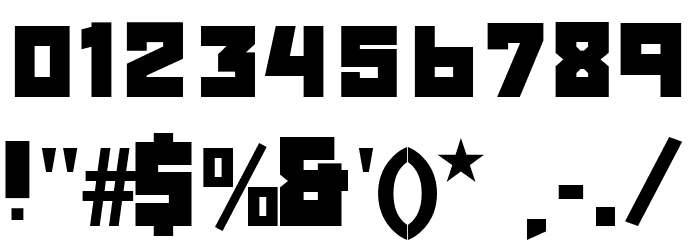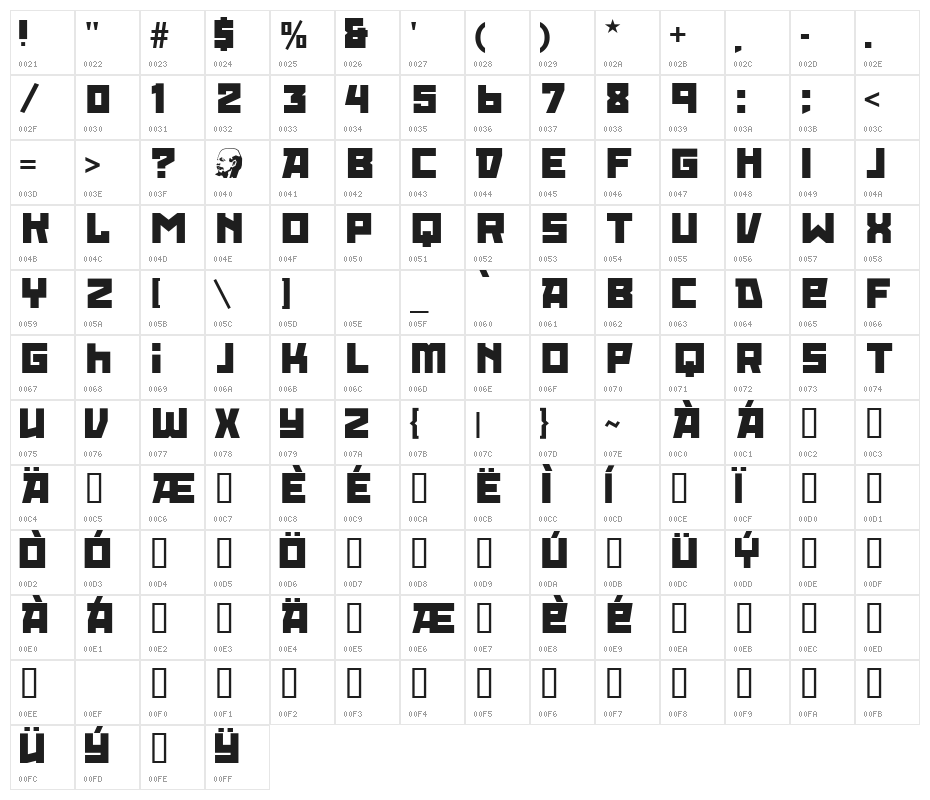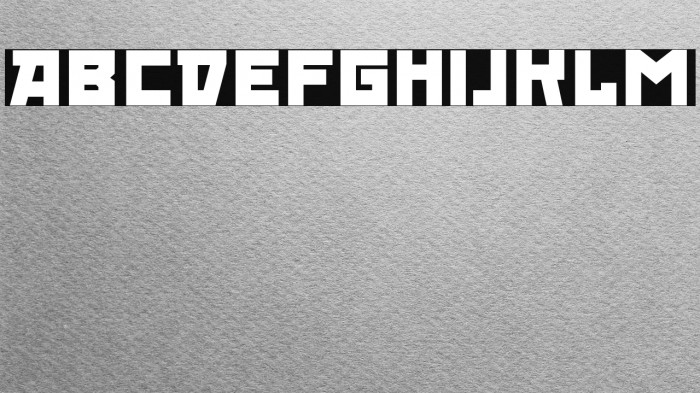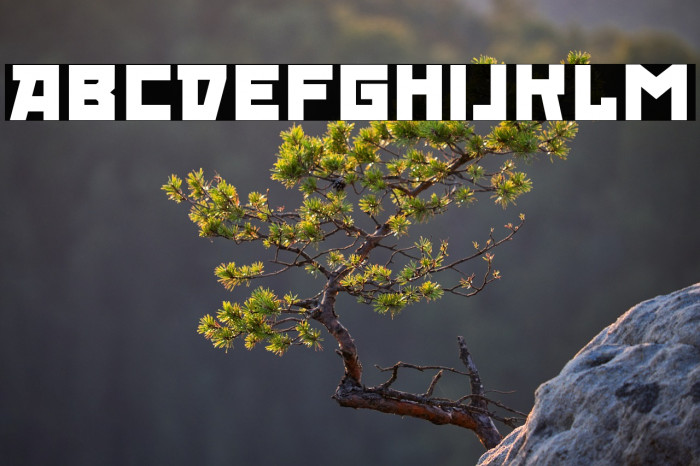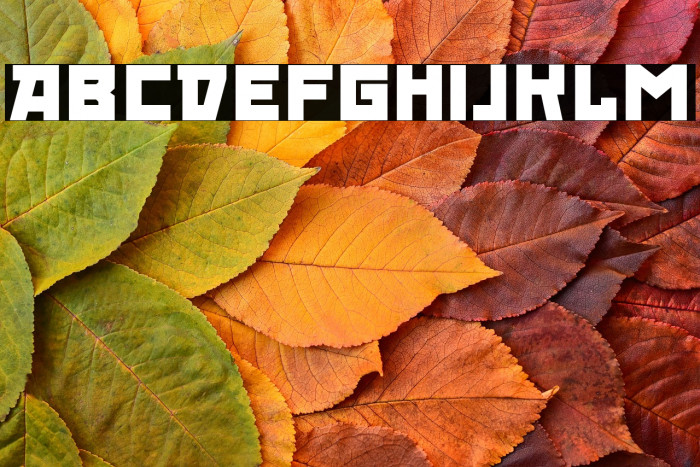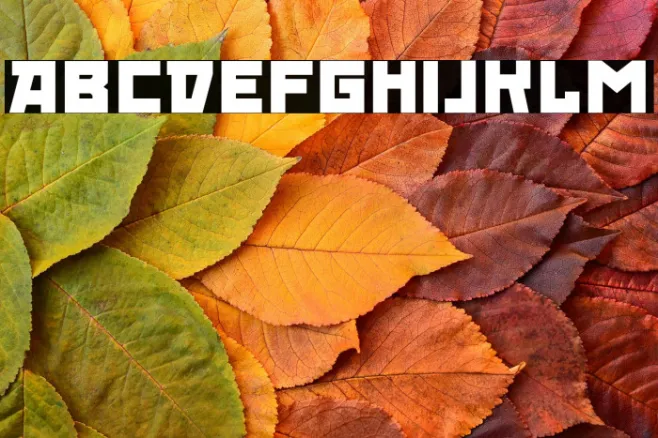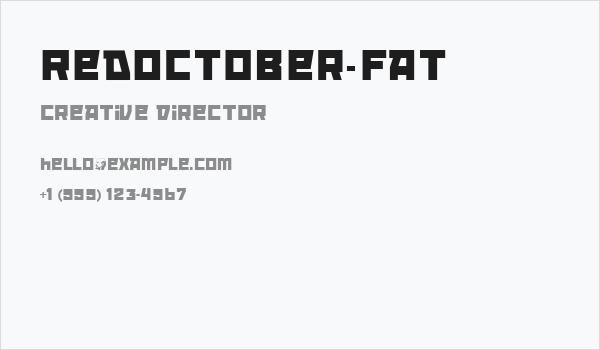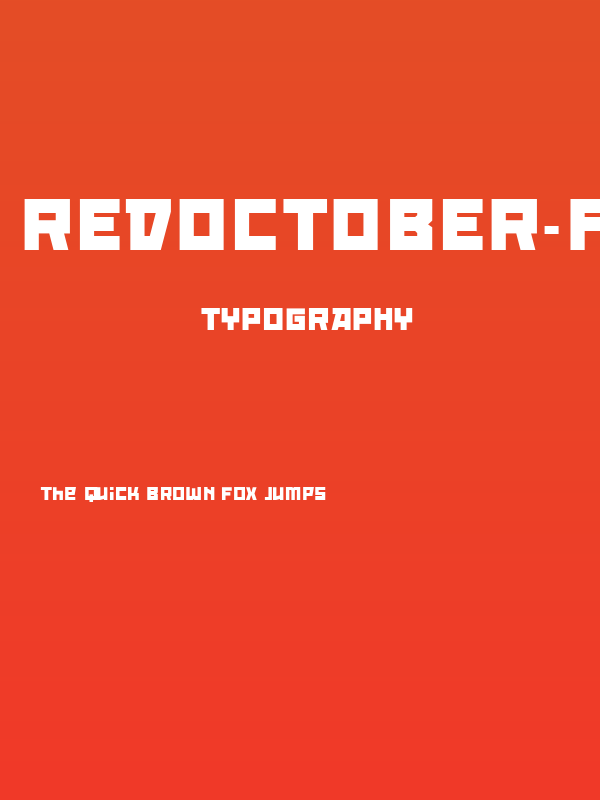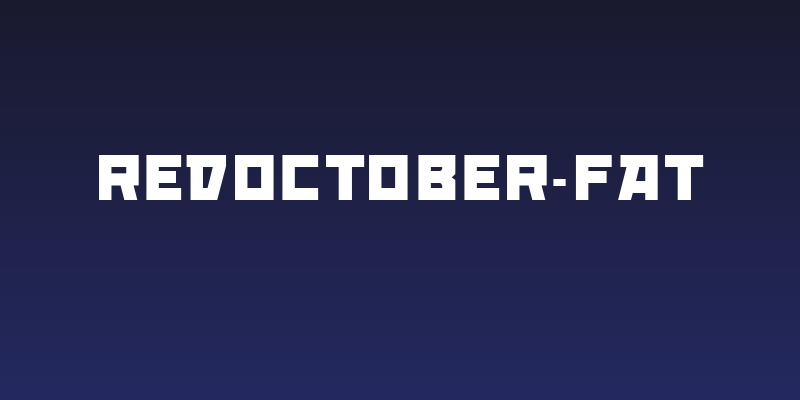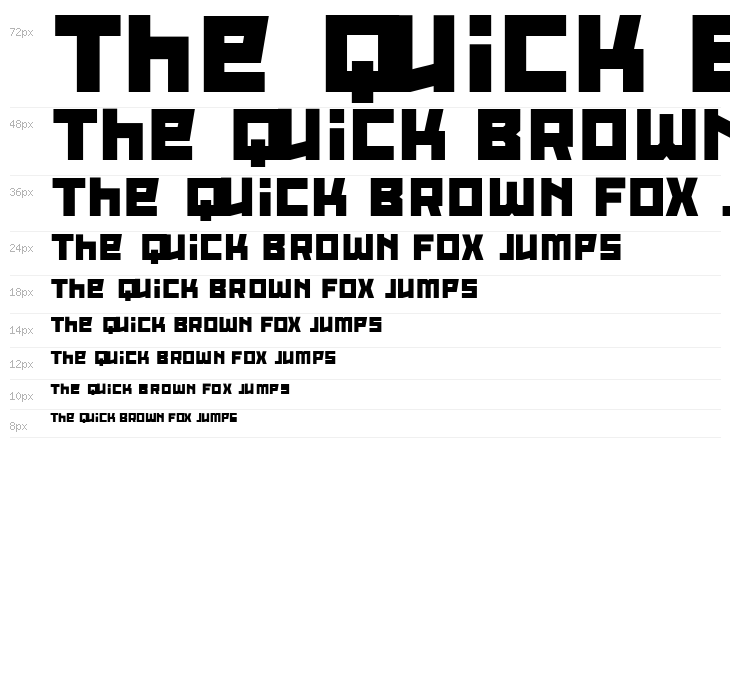
RedOctober-Fat Font
RedOctober-Fat Description
This font features a bold, geometric design with a strong presence. The characters are constructed with sharp angles and straight lines, giving it a modern and industrial feel. The uppercase and lowercase letters maintain a consistent weight, contributing to its uniform appearance. The numbers and special characters are equally bold, ensuring readability and impact. The overall style is assertive and eye-catching, making it suitable for projects that require a strong visual statement.
| Proposed Projects | Ideal for posters, logos, branding, and headlines where a strong, impactful font is needed. |